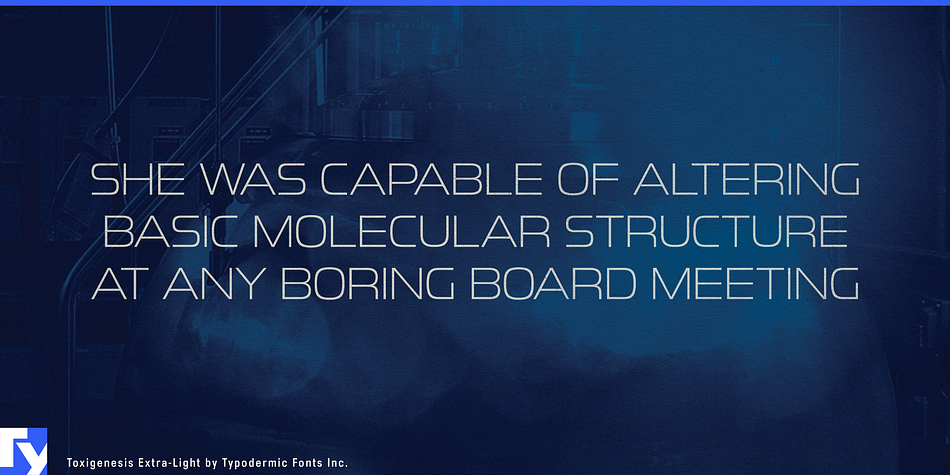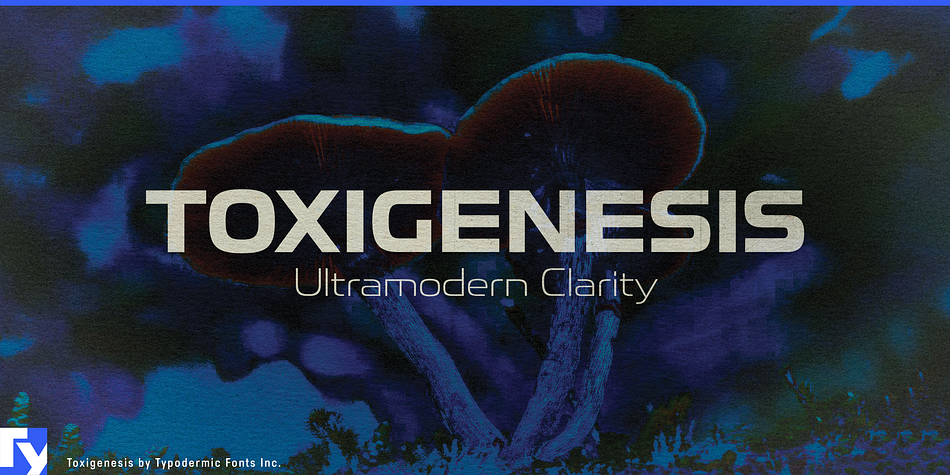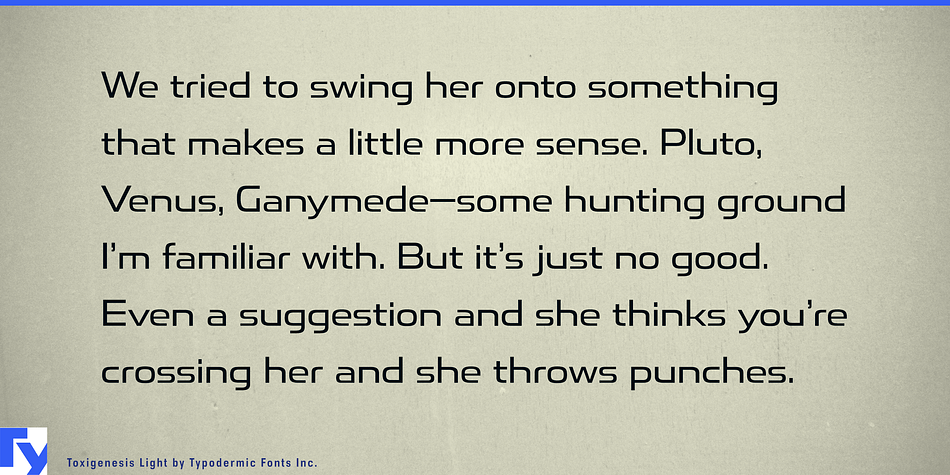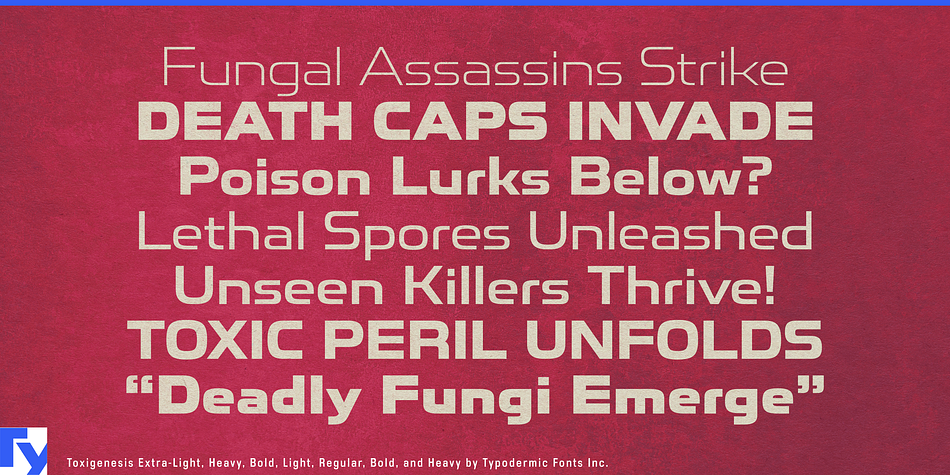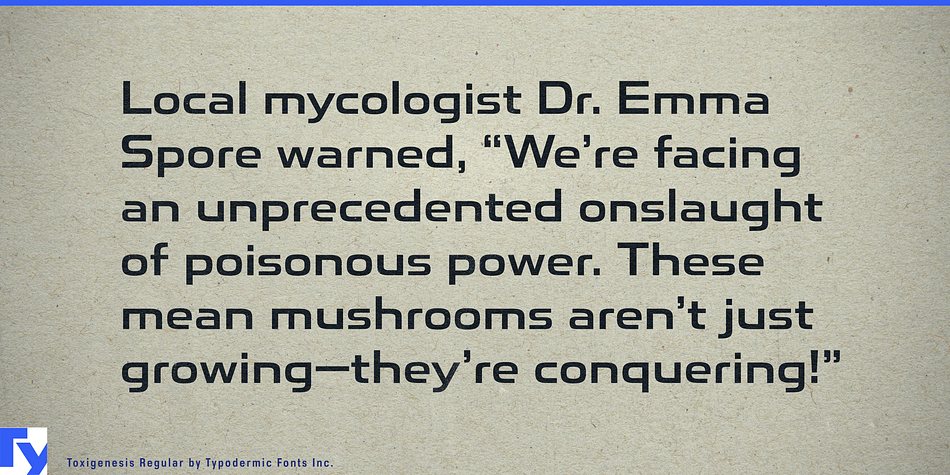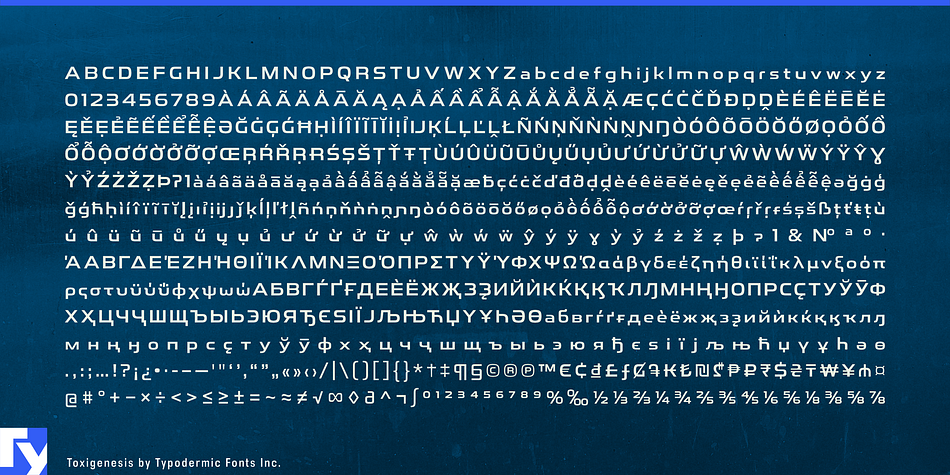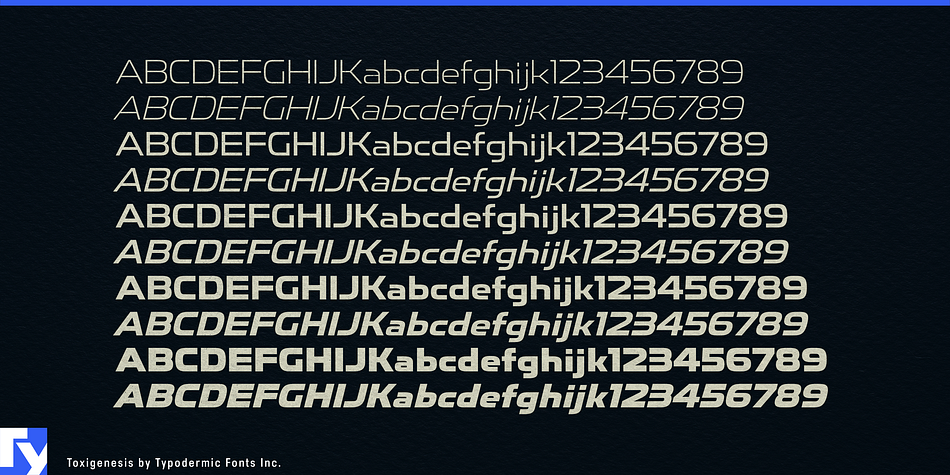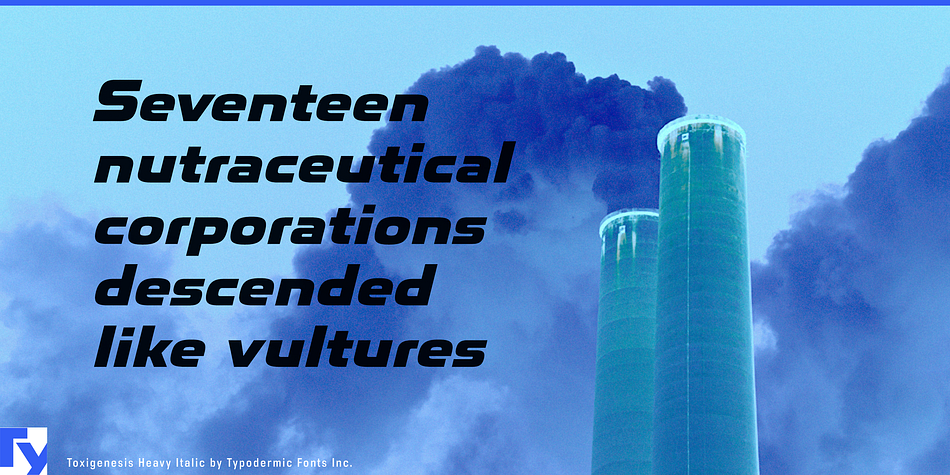
Designed by Ray Larabie, Toxigenesis is a display sans font family. This typeface has ten styles and was published by Typodermic Fonts Inc.
Superelliptical sans serif typeface Toxigenesis is influenced by consumer electronics and automobile design in its ultramodern, plastic shapes. It’s the ideal typeface for conveying scientific, high-tech, and industrial prowess without sacrificing readability. In terms of mathematic symbols, fractions and monetary symbols, there’s much to choose from. Toxigenesis is available is five weights and italics. Most Latin-based European, Vietnamese, Greek, and most Cyrillic-based writing systems are supported, including the following languages. Afaan Oromo, Afar, Afrikaans, Albanian, Alsatian, Aromanian, Aymara, Azerbaijani, Bashkir, Bashkir (Latin), Basque, Belarusian, Belarusian (Latin), Bemba, Bikol, Bosnian, Breton, Bulgarian, Buryat, Cape Verdean, Creole, Catalan, Cebuano, Chamorro, Chavacano, Chichewa, Crimean Tatar (Latin), Croatian, Czech, Danish, Dawan, Dholuo, Dungan, Dutch, English, Estonian, Faroese, Fijian, Filipino, Finnish, French, Frisian, Friulian, Gagauz (Latin), Galician, Ganda, Genoese, German, Gikuyu, Greenlandic, Guadeloupean Creole, Haitian Creole, Hawaiian, Hiligaynon, Hungarian, Icelandic, Igbo, Ilocano, Indonesian, Irish, Italian, Jamaican, Kaingang, Khalkha, Kalmyk, Kanuri, Kaqchikel, Karakalpak (Latin), Kashubian, Kazakh, Kikongo, Kinyarwanda, Kirundi, Komi-Permyak, Kurdish, Kurdish (Latin), Kyrgyz, Latvian, Lithuanian, Lombard, Low Saxon, Luxembourgish, Maasai, Macedonian, Makhuwa, Malay, Maltese, Māori, Moldovan, Montenegrin, Nahuatl, Ndebele, Neapolitan, Norwegian, Novial, Occitan, Ossetian (Latin), Papiamento, Piedmontese, Polish, Portuguese, Quechua, Rarotongan, Romanian, Romansh, Russian, Rusyn, Sami, Sango, Saramaccan, Sardinian, Scottish Gaelic, Serbian, Serbian (Latin), Shona, Sicilian, Silesian, Slovak, Slovenian, Somali, Sorbian, Sotho, Spanish, Swahili, Swazi, Swedish, Tagalog, Tahitian, Tajik, Tatar, Tetum, Tongan, Tshiluba, Tsonga, Tswana, Tumbuka, Turkish, Turkmen (Latin), Tuvaluan, Ukrainian, Uzbek, Uzbek (Latin), Venda, Venetian, Vepsian, Vietnamese, Võro, Walloon, Waray-Waray, Wayuu, Welsh, Wolof, Xavante, Xhosa, Yapese, Zapotec, Zarma, Zazaki, Zulu and Zuni.